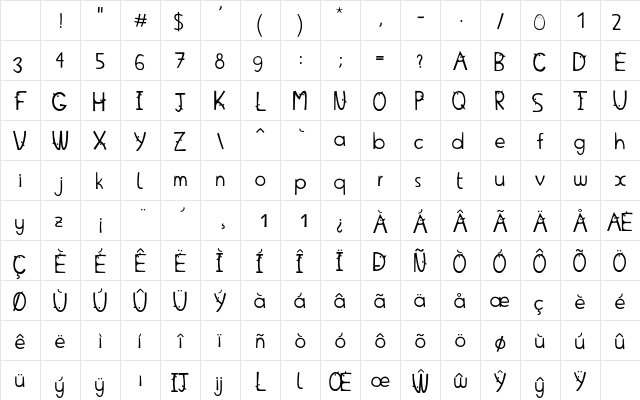
Pajarito Font Regular Free Font
Pajarito Font Regular
Designer: Zo￿oro
Design Context for Pajarito Font
Pajarito Font is a composed and adaptable typeface that performs quietly and consistently across a wide range of design contexts.